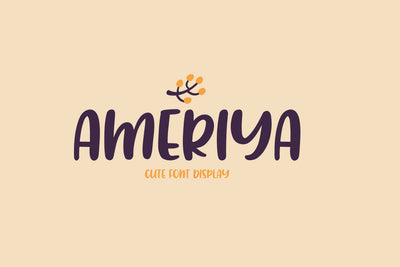
Ameriya Font
Ameriya font is a playful and neat paint brushed display font. It is simple, fresh and friendly display brush font. This font is perfect for children themed designs, especially when combined with bright colors. It is perfect for creating fun designs that will draw all the attention. It is great for Instagram or Facebook posts, blog post headlines, product packaging, home decor, shirt design, and crafts.